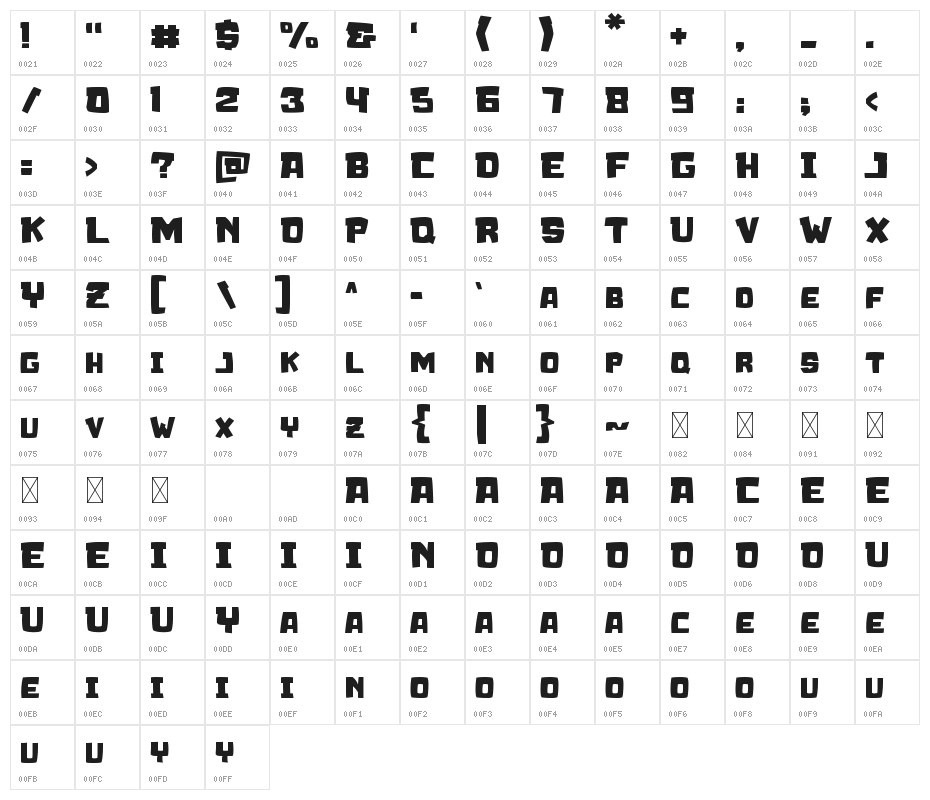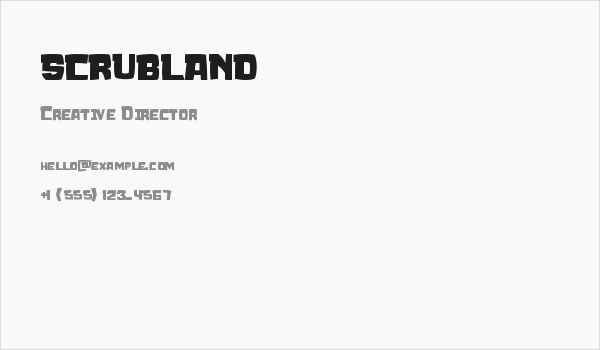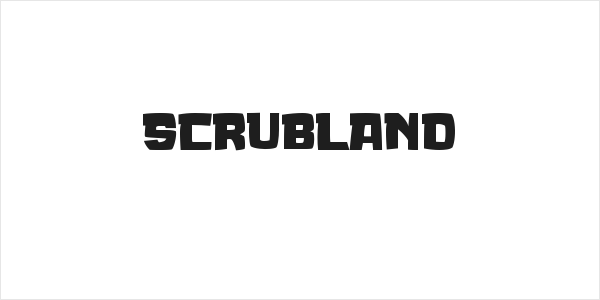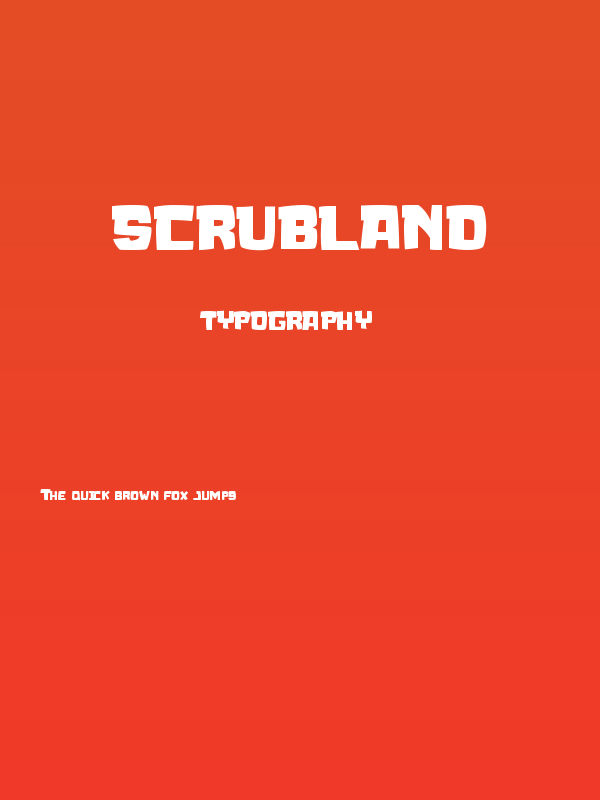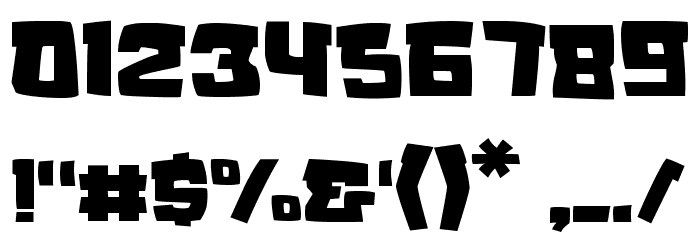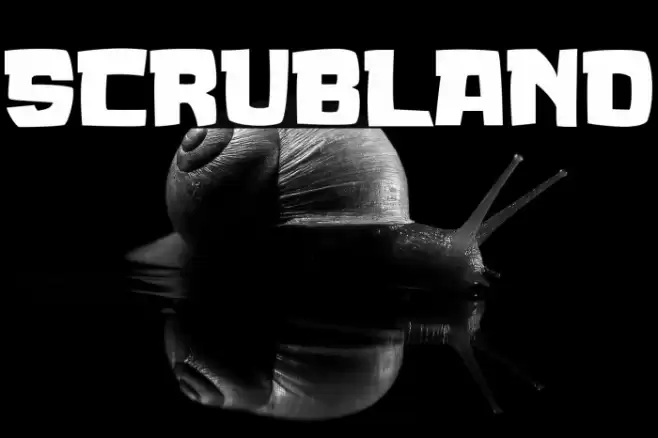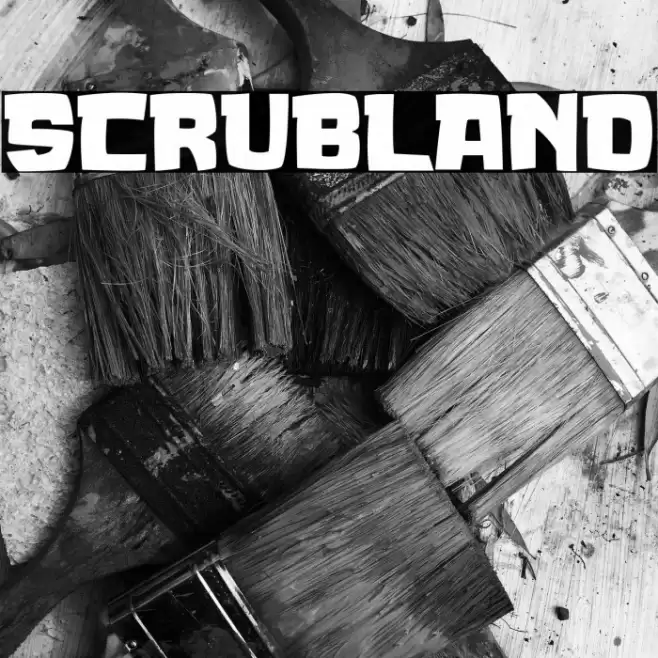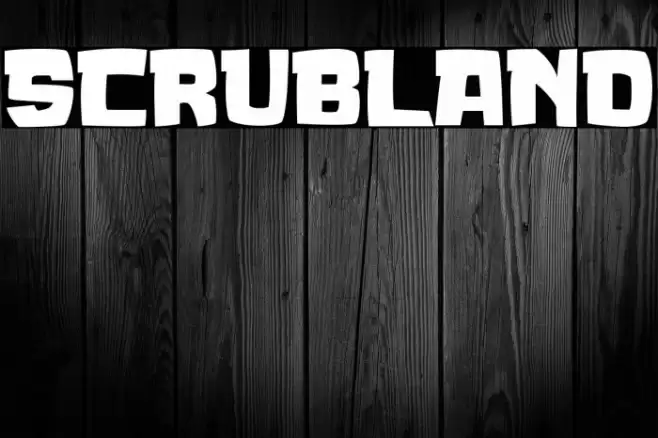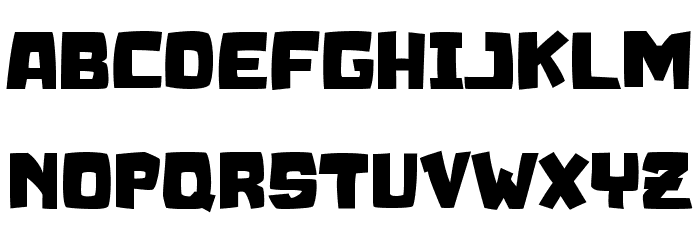
SCRUBLAND Font
SCRUBLAND Description
This font features a bold and striking design with a distinctly angular and geometric style. The characters are blocky and robust, giving off a strong, impactful presence. The uppercase and lowercase letters maintain a consistent weight, contributing to a cohesive look. The numbers and special characters follow the same bold and angular theme, ensuring uniformity across all glyphs. The font's unique style makes it ideal for attention-grabbing headlines or titles. Its boldness and geometric shapes suggest a modern and edgy aesthetic, suitable for projects that require a strong visual statement.
| Proposed Projects | Perfect for posters, branding, logos, and any design requiring a strong visual impact. |